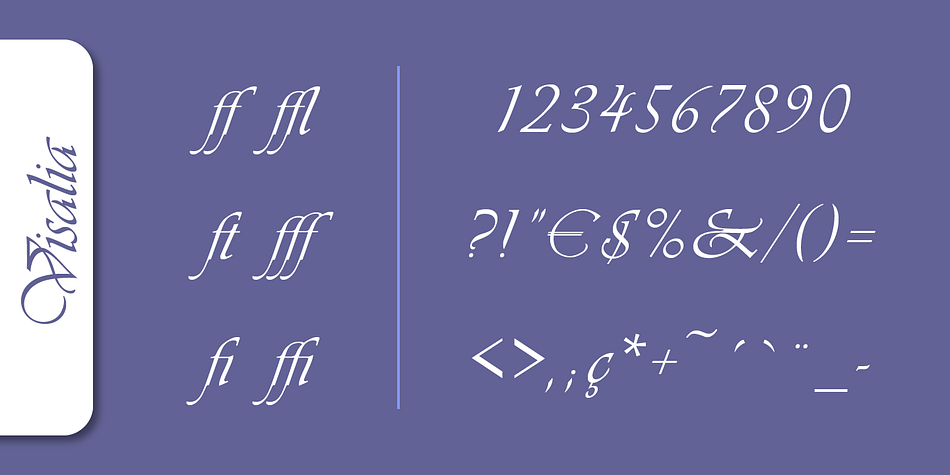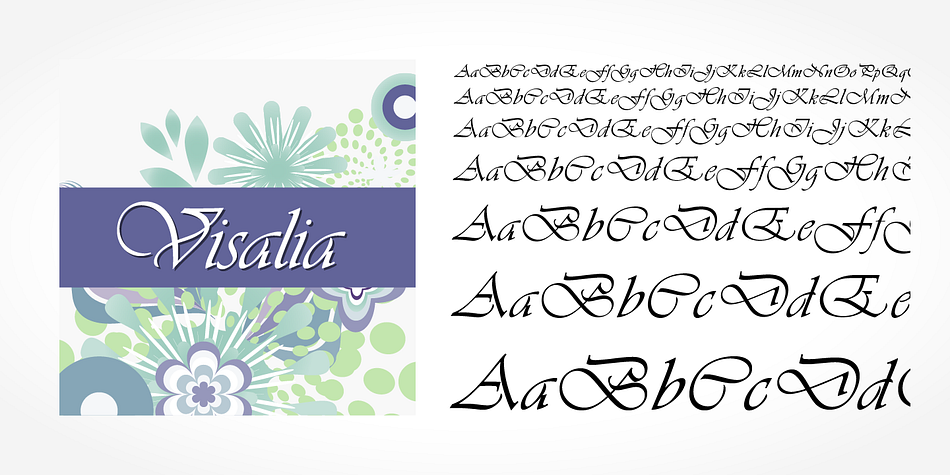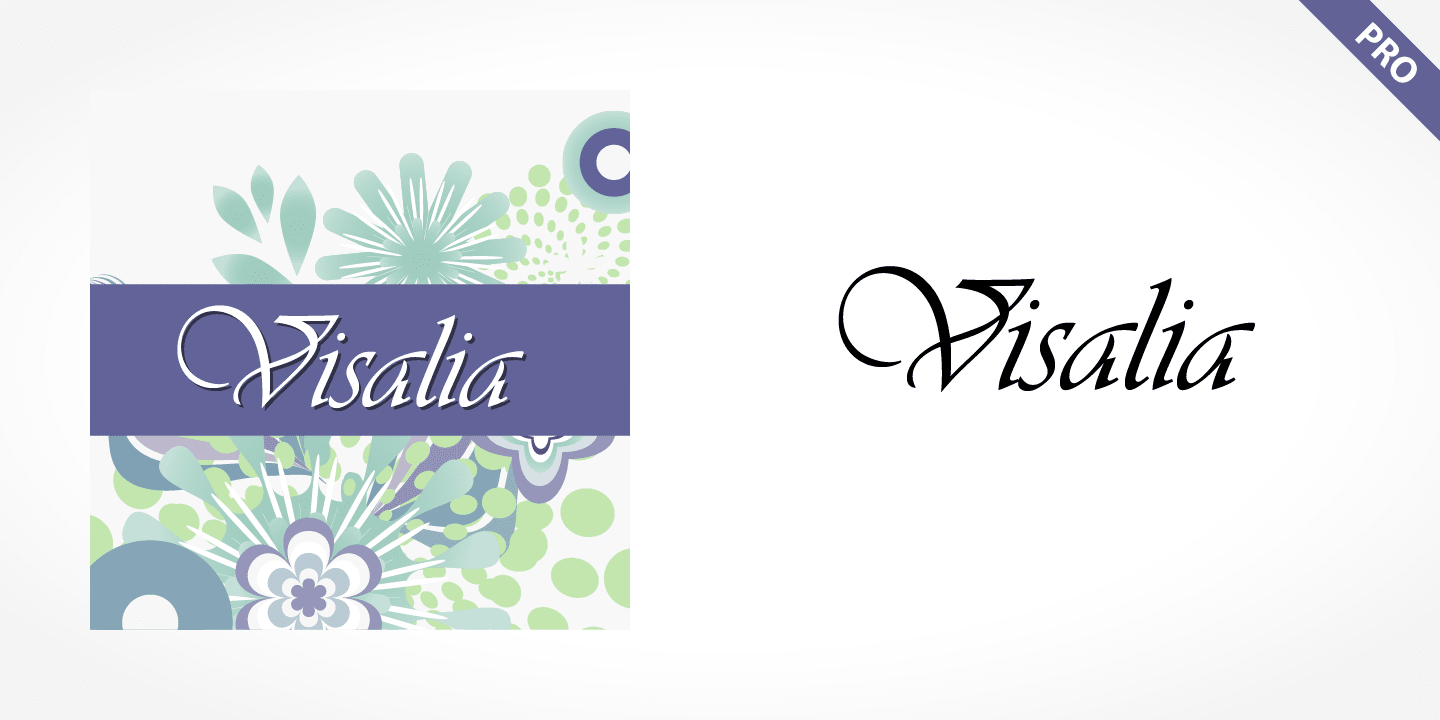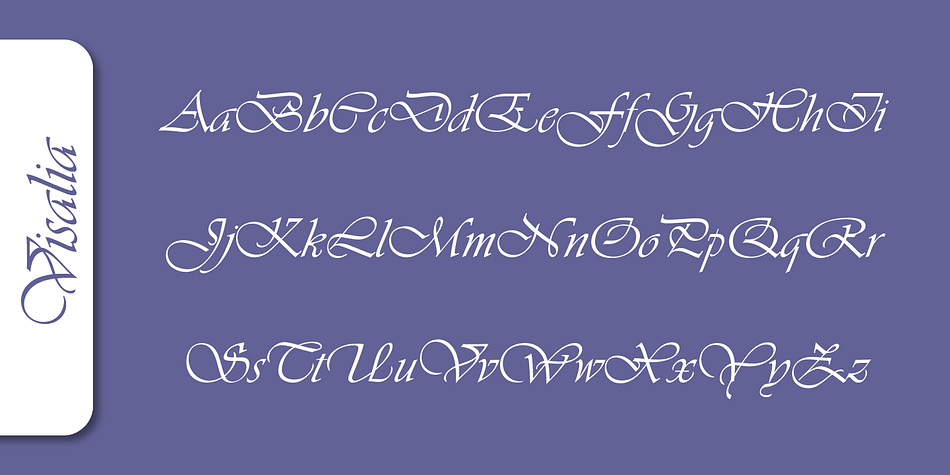
Visalia Pro
Visalia Pro is a script font published by SoftMaker.
Visalia Pro has generous, intricate initial caps combine with a more reserved lowercase to create a beautiful script font. Visalia Pro’s letterforms incorporate an elegant mixture of calligraphic and copperplate elements. It is ideal for invitations, announcements, certificates, or other work requiring a distinctive, formal appearance.